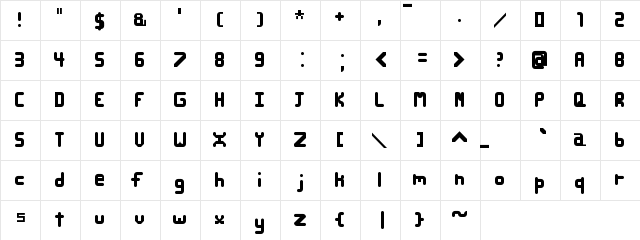
Hkeix Regular Font Preview
Hkeix Regular
Hkeix Regular Font Details
| Designer | Few Karen |
| Copyright | Copyright Few Karen 2010 Hkeix is based on What Teh F? by JGtuts http://fontstruct.fontshop.com/fontstructors/jgtuts) |
Design Context for Hkeix Typeface
Hkeix takes a measured approach to typography — its balanced proportions and neutral character make it a reliable workhorse for both digital and print work.